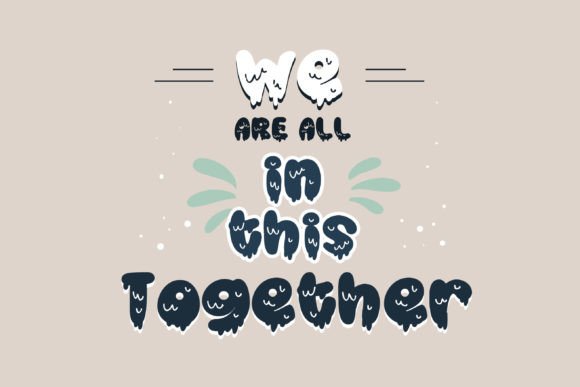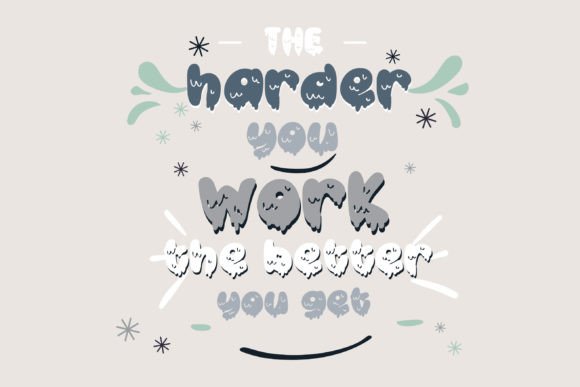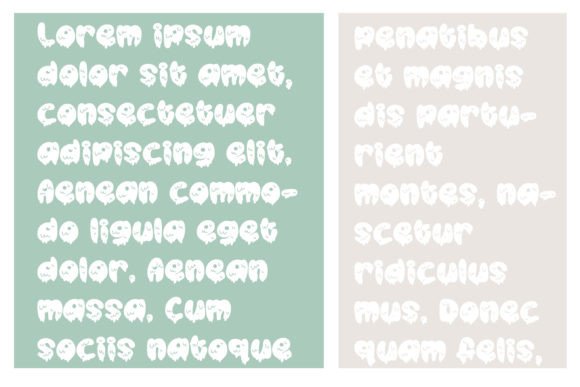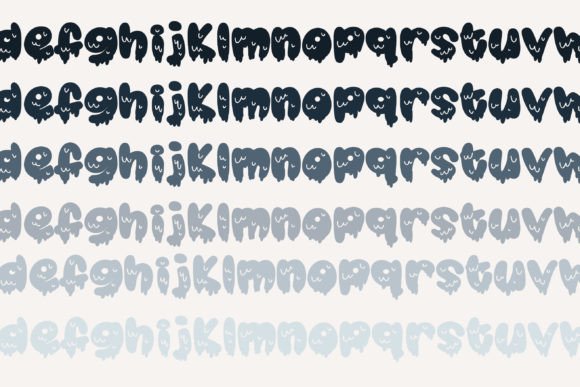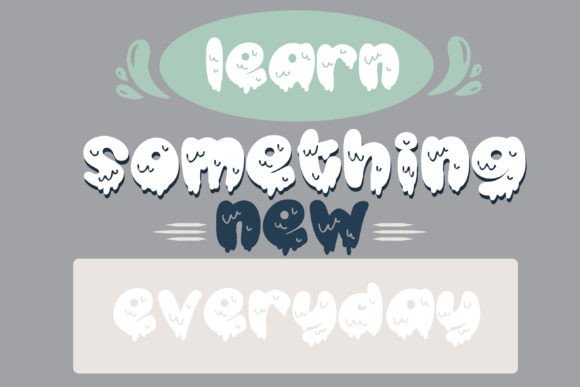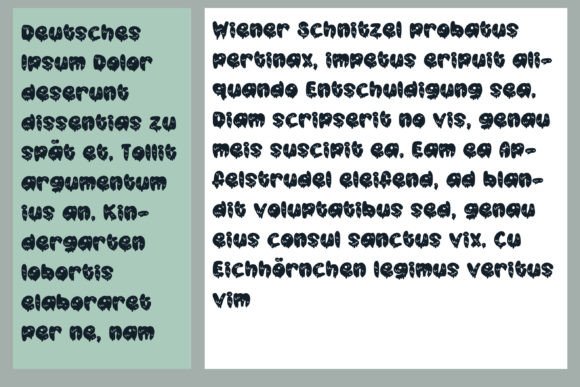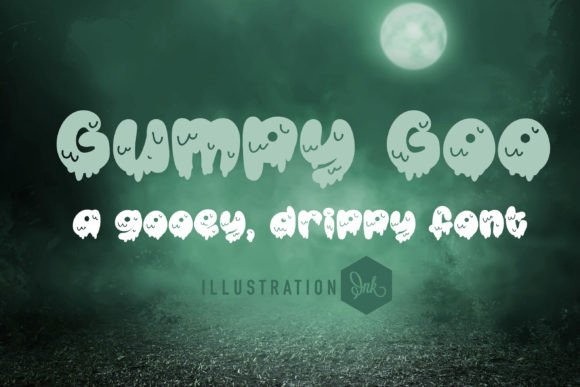
Gumpy Goo Font: The Slimy and Modern Display Font for Daring Designers
In the world of typography, fonts play a crucial role in conveying the tone and personality of a brand. For designers looking to make a bold statement, Gumpy Goo Font is an exciting and modern display font that’s sure to grab attention. This slimy and edgy font features a unique gooey texture that appears to drip and ooze off the page, giving it a distinctively slimy look.
What is Gumpy Goo Font?
Gumpy Goo Font is a bold and eye-catching display font designed for daring designers who want to push the boundaries of creativity. Its slimy texture and modern aesthetic make it an ideal choice for edgy branding, product packaging, and other attention-grabbing applications. Whether you’re looking to create a bold logo, design a striking poster, or craft a unique brand identity, Gumpy Goo Font is the perfect tool to help you stand out from the crowd.
Key Features of Gumpy Goo Font
- Unique Gooey Texture: Gumpy Goo Font features a distinctive gooey texture that gives it a slimy and modern look.
- Bold and Eye-Catching: This display font is designed to grab attention and make a bold statement.
- Edgy and Modern: Gumpy Goo Font is perfect for designers who want to create edgy and modern designs.
- Versatile: This font can be used for a wide range of applications, from branding and packaging to posters and social media graphics.
Why Use Gumpy Goo Font?
So, why should designers choose Gumpy Goo Font for their projects? Here are just a few reasons:
- Add an Edgy Touch: Gumpy Goo Font can add a bold and edgy touch to any design, making it perfect for brands that want to stand out from the crowd.
- Create a Lasting Impression: The unique gooey texture and slimy look of Gumpy Goo Font make it a great choice for designers who want to create a lasting impression.
- Perfect for Branding: This font is ideal for branding and product packaging, as it can help to create a bold and memorable brand identity.
How to Use Gumpy Goo Font
- Pair with a Simple Font: Pair Gumpy Goo Font with a simple font to create a bold and eye-catching contrast.
- Use for Headings: Use Gumpy Goo Font for headings and titles to add a bold and edgy touch to your design.
- Experiment with Colors: Experiment with different colors to find the perfect combination that brings out the slimy texture of Gumpy Goo Font.
- Play with Texture: Play with texture and pattern to find new and interesting ways to use Gumpy Goo Font.
- Keep it Simple: Keep your design simple and clean to let Gumpy Goo Font take center stage.
Gumpy Goo Font is a slimy and modern display font that’s perfect for daring designers who want to make a bold statement. With its unique gooey texture and bold aesthetic, this font is ideal for edgy branding, product packaging, and other attention-grabbing applications. Whether you’re a designer or crafter, Gumpy Goo Font is a great tool to have in your toolkit.